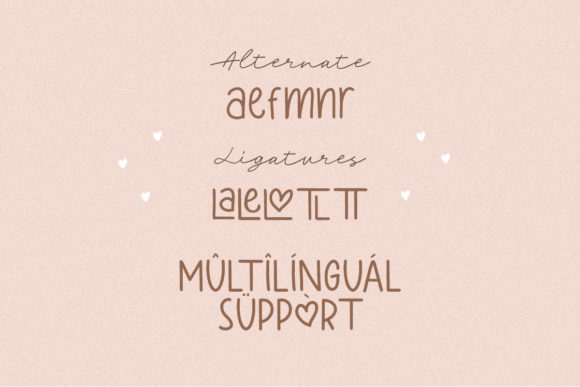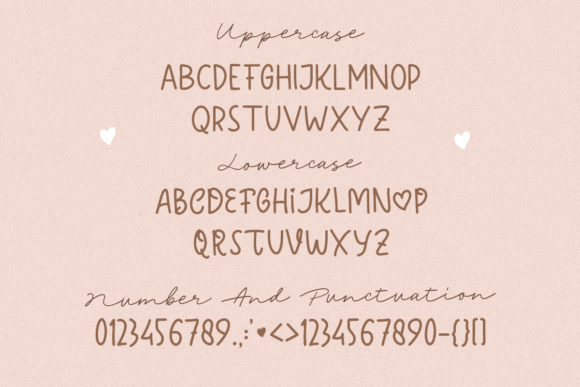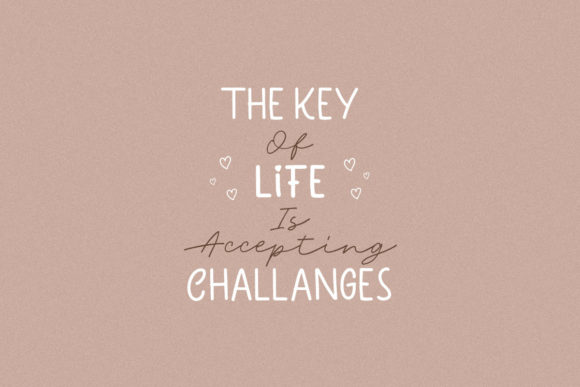
Introduction to Brownies Lover Font
Brownies Lover is a cute and friendly sans serif font.
It is both fun and stylish, and it can be used on apparel, displays, logos, branding, quotes and more .
Brownies Lover Font offers exceptional quality and versatility, making it a valuable addition to your design toolkit. Whether you’re creating for personal projects or commercial use, Brownies Lover Font delivers professional results.